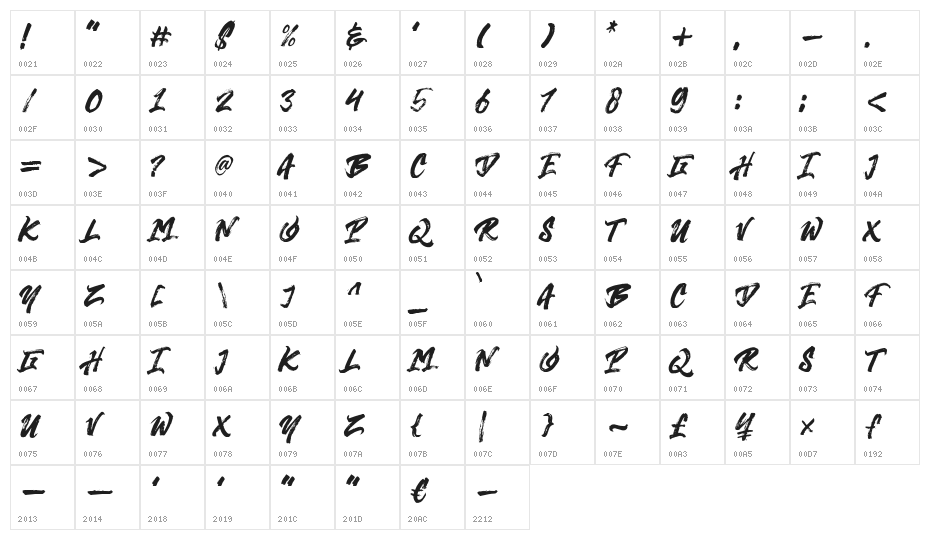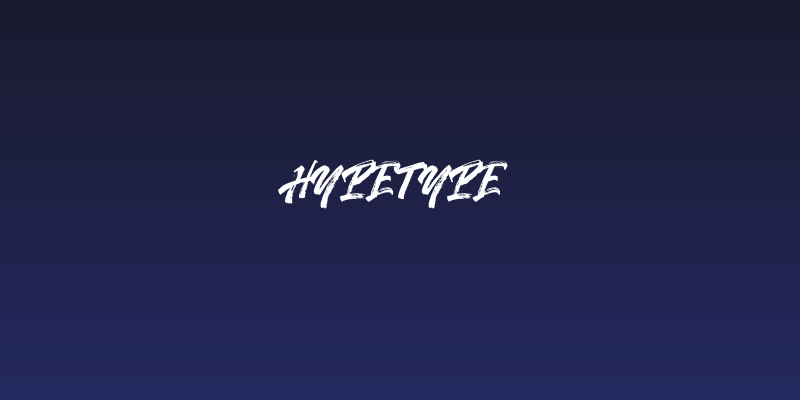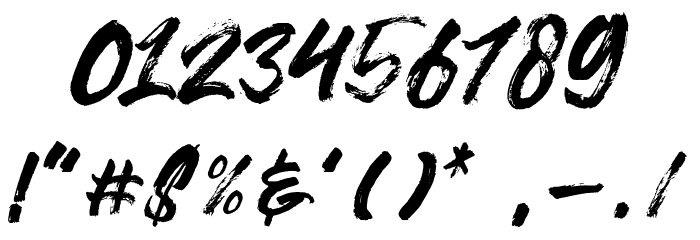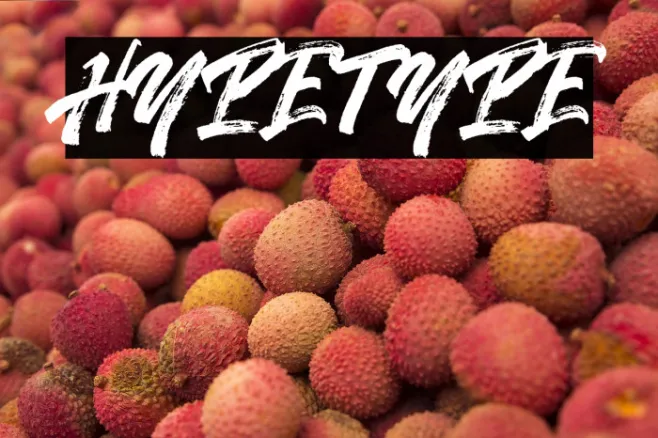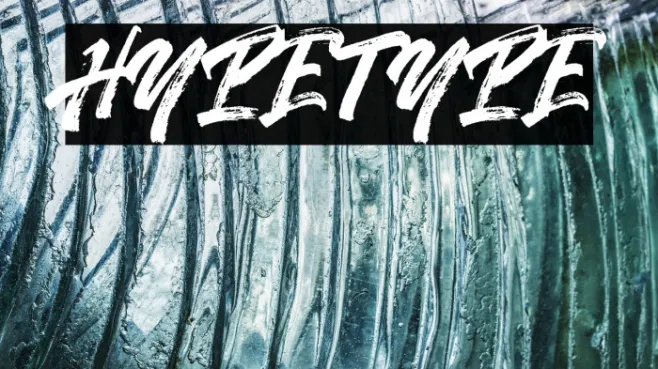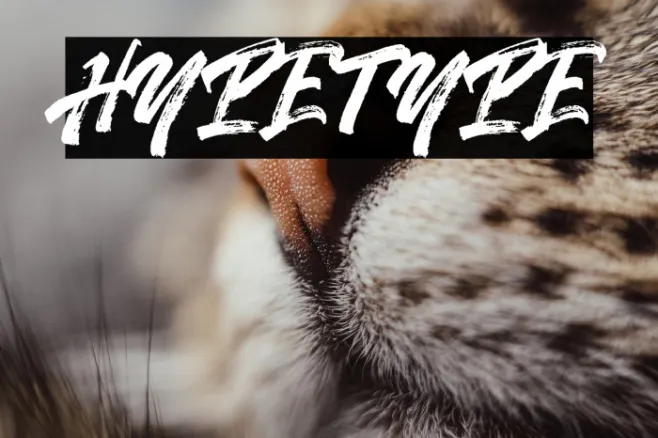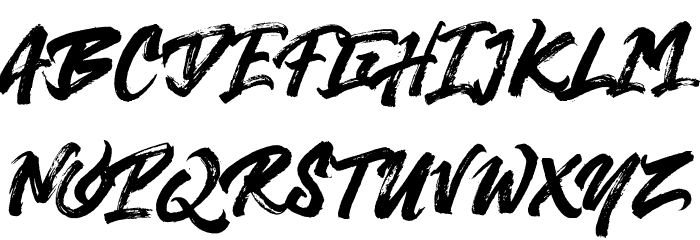
Hypetype Font
Hypetype Description
This font exudes a bold, energetic style with a brush-like texture that gives it a dynamic and expressive appearance. The strokes are thick and uneven, creating a sense of movement and spontaneity. Each character is distinct, with a slightly rough edge that adds to the overall artistic feel. The uppercase and lowercase letters maintain a consistent style, while the numbers and special characters blend seamlessly into the design. This font is perfect for projects that require a strong visual impact and a touch of creativity.
| Proposed Projects | Ideal for posters, branding, album covers, and any design needing a bold artistic touch. |